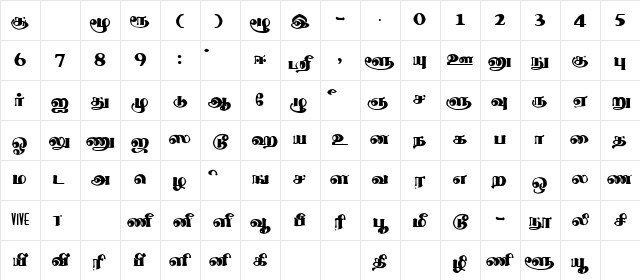
Thevaki Regular
Design Context for Thevaki
Thevaki is a composed and adaptable typeface that performs quietly and consistently across a wide range of design contexts.
Pro Tip: Use Thevaki in both headline and body roles to test its range before committing to a single application.